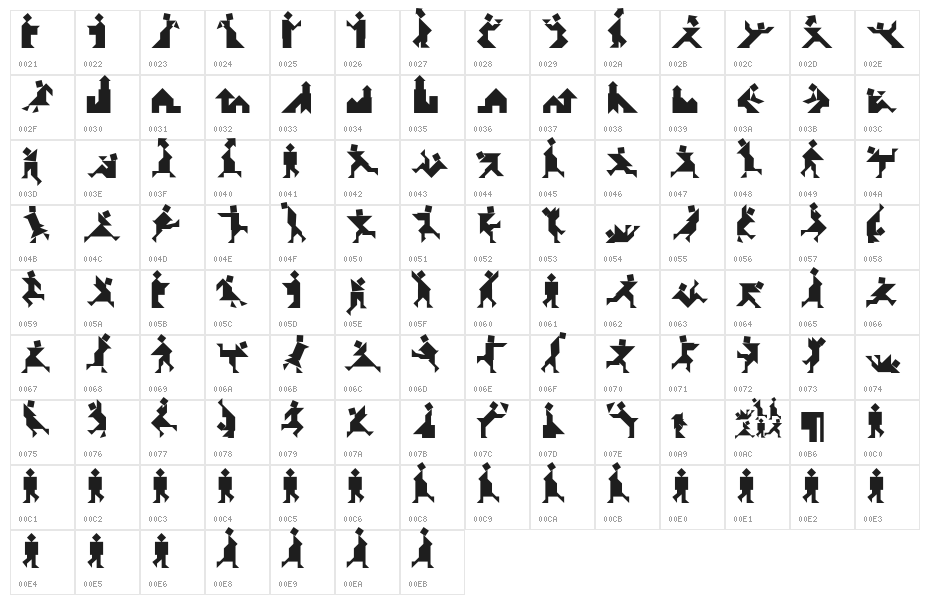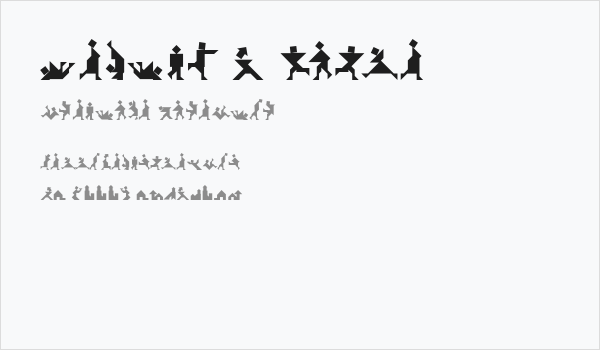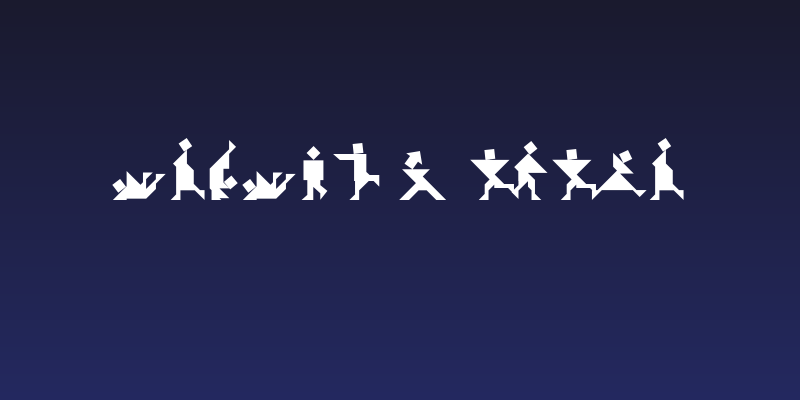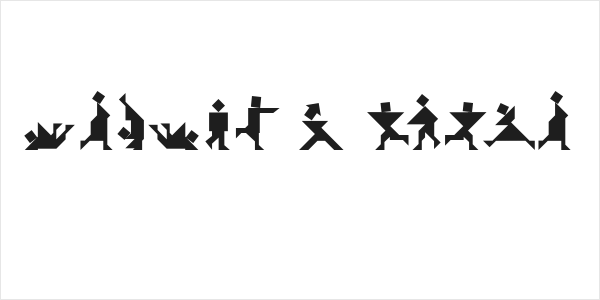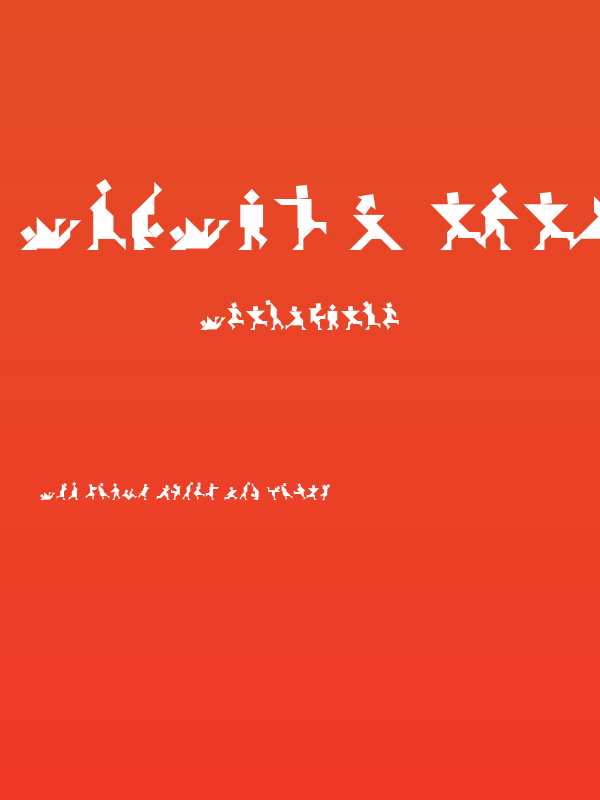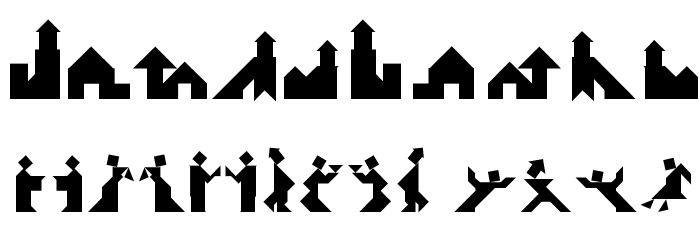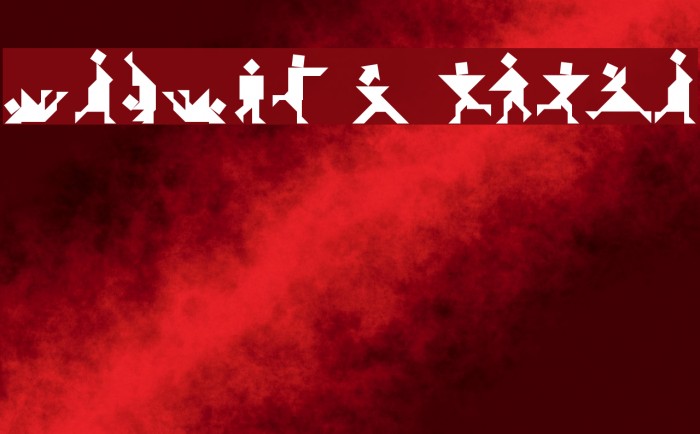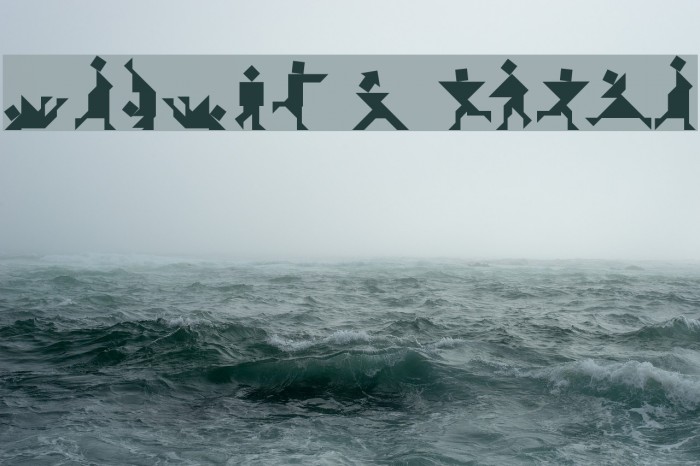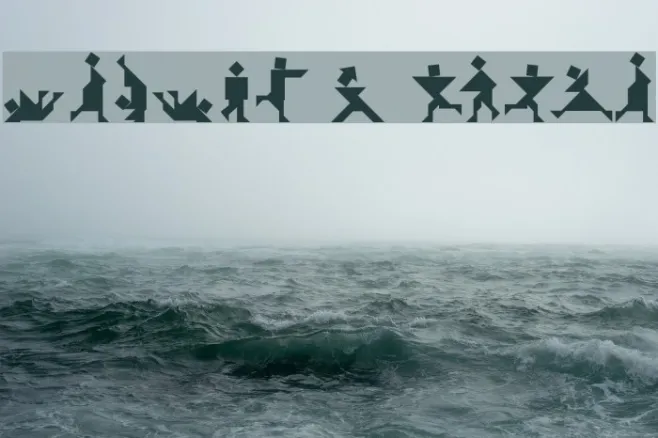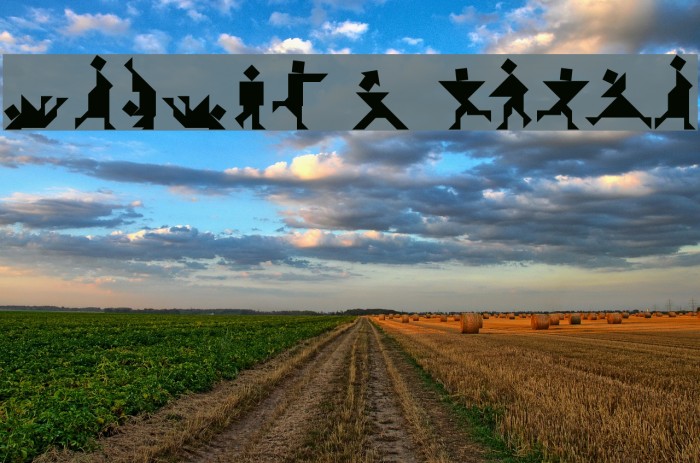
Textan - Piple Font
Textan - Piple Description
This font features a unique and playful design where each character is represented by a stylized human figure or building silhouette. The characters are composed of geometric shapes, creating a dynamic and abstract appearance. The figures are depicted in various poses, adding a sense of movement and energy to the text. The use of solid black shapes gives the font a bold and striking look, making it highly distinctive and eye-catching. The overall design is creative and unconventional, suitable for projects that require a fun and artistic touch.
| Use Case | Logos, Posters, Artistic projects |
| Proposed Projects | Ideal for creative posters, children's books, playful branding, and artistic projects. |